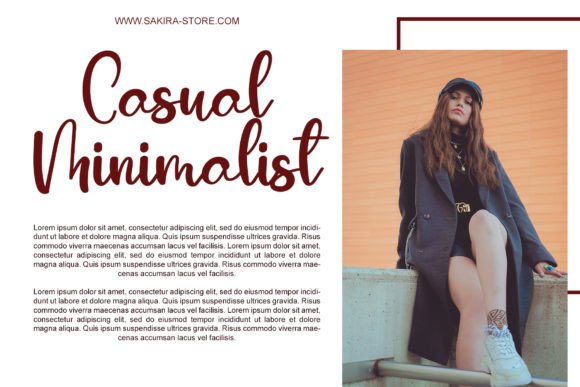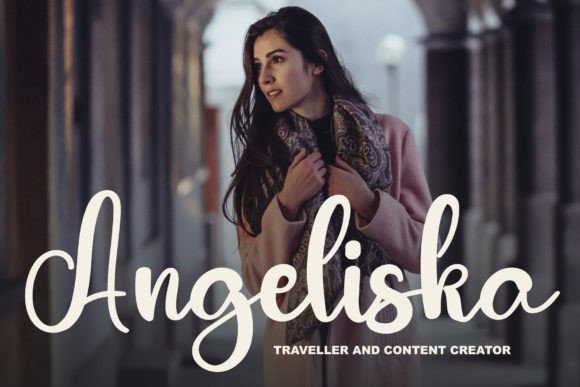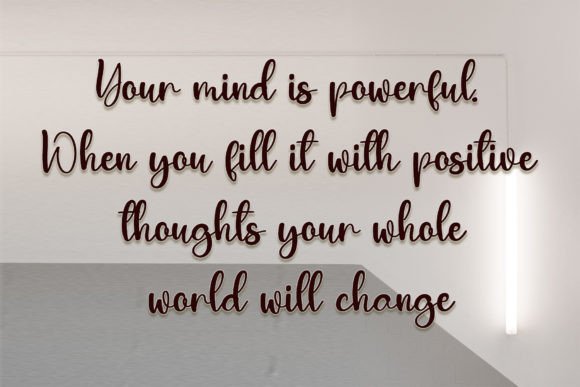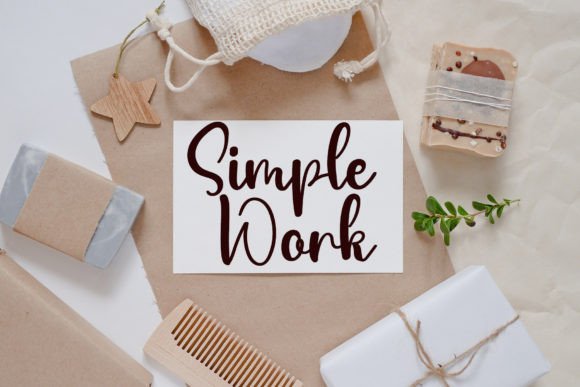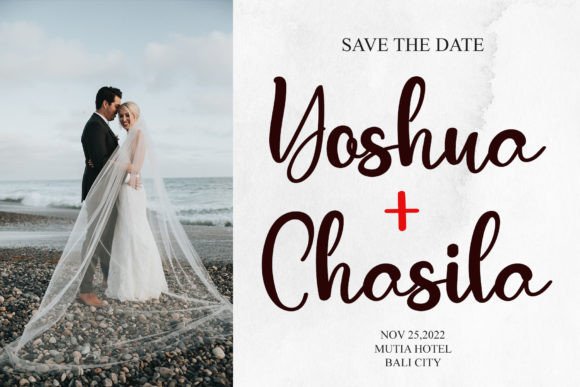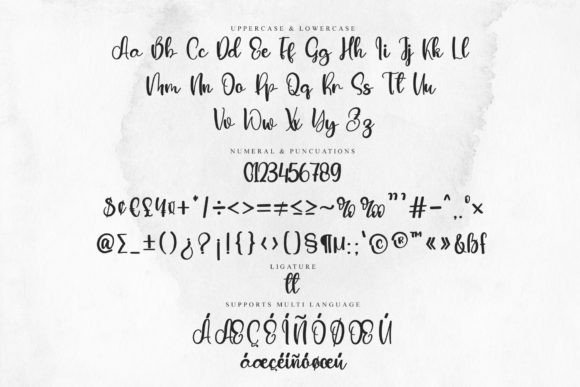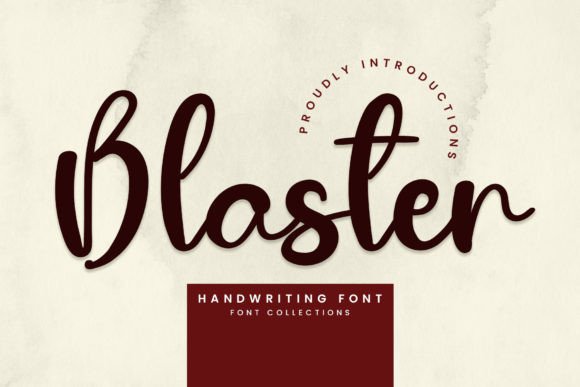
Introducing Blaster Font: Elevate Your Designs with Timeless Elegance
In the world of typography, a font can make or break a design. For designers and crafters seeking to add a touch of sophistication and style to their projects, Blaster Font is an exceptional choice. This stylish handwritten font boasts a contemporary atmosphere and impeccable form, drawing inspiration from timeless classic calligraphy.
The Inspiration Behind Blaster Font
Blaster Font is the result of meticulous craftsmanship, blending traditional calligraphic techniques with modern design sensibilities. The creators aimed to develop a font that not only pays homage to the classics but also meets the demands of contemporary design. The result is a beautifully balanced and varied font that enhances the aesthetic appeal of any project.
Key Features of Blaster Font
- Contemporary yet Classic: Blaster Font strikes the perfect balance between modern style and timeless elegance, making it versatile for various design applications.
- Handwritten with Precision: The font’s handwritten nature gives it a personal and unique touch, while its precision ensures clarity and readability.
- Varied and Balanced: With a range of characters and ligatures, Blaster Font offers designers the flexibility to create visually appealing and dynamic text.
- Impeccable Form: The font’s design focuses on impeccable form, ensuring that every letter and character contributes to a cohesive and polished look.
Applications of Blaster Font
Blaster Font’s versatility makes it suitable for a wide array of design projects, including:
- Branding and Logos: Create memorable and elegant brand identities with Blaster Font.
- Stationery and Invitations: Add a touch of sophistication to your stationery, invitations, and greeting cards.
- Digital Media: Use Blaster Font in digital marketing materials, presentations, and social media graphics to stand out.
- Crafting and DIY Projects: Perfect for crafters, Blaster Font can be used in handmade cards, scrapbooking, and other DIY projects.
Why Choose Blaster Font?
In a sea of fonts, Blaster Font stands out for several reasons:
- Unique yet Legible: It offers a unique style without compromising on legibility.
- Highly Versatile: Suitable for both digital and print projects.
- Easy to Use: Blaster Font is designed to be user-friendly, making it accessible for designers of all skill levels.
- Constantly Updated: The creators of Blaster Font are committed to updates and improvements, ensuring the font remains relevant and functional.
Tips for Using Blaster Font Effectively
To maximize the impact of Blaster Font in your designs:
- Experiment with Sizes: Play with different font sizes to create visual hierarchy and emphasis.
- Combine with Other Fonts: Pair Blaster Font with complementary fonts to add depth and interest to your designs.
- Utilize Ligatures: Take advantage of the font’s ligatures to add a touch of elegance and uniqueness.
- Consider Color: Choose colors that complement the elegant feel of Blaster Font, such as soft pastels or rich jewel tones.
Blaster Font is more than just a typeface; it’s a design tool that can elevate your projects to new heights of elegance and sophistication. Whether you’re a professional designer or a crafting enthusiast, Blaster Font offers the perfect blend of style, versatility, and timeless appeal. By incorporating Blaster Font into your design arsenal, you’ll be well on your way to creating visually stunning and memorable projects.